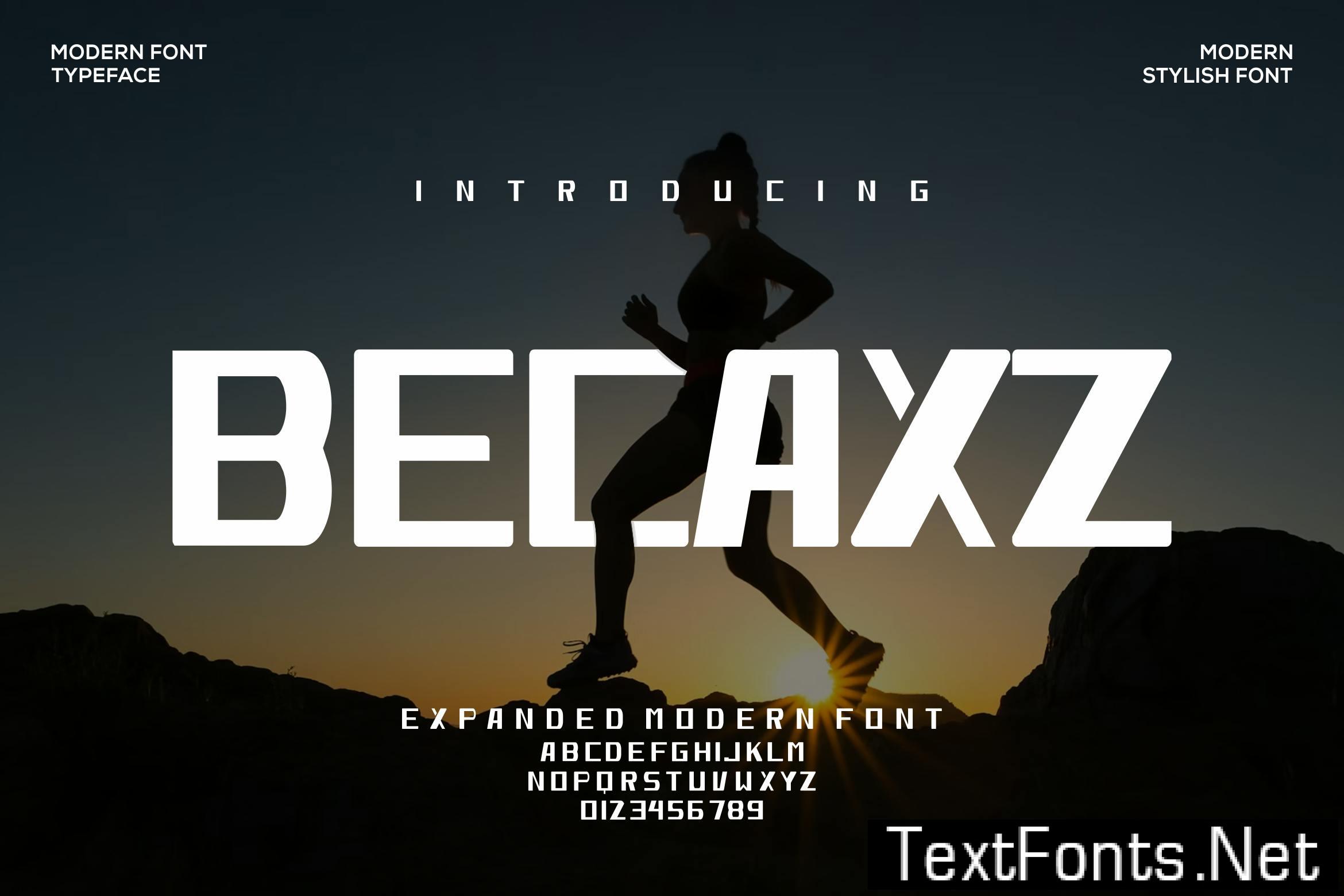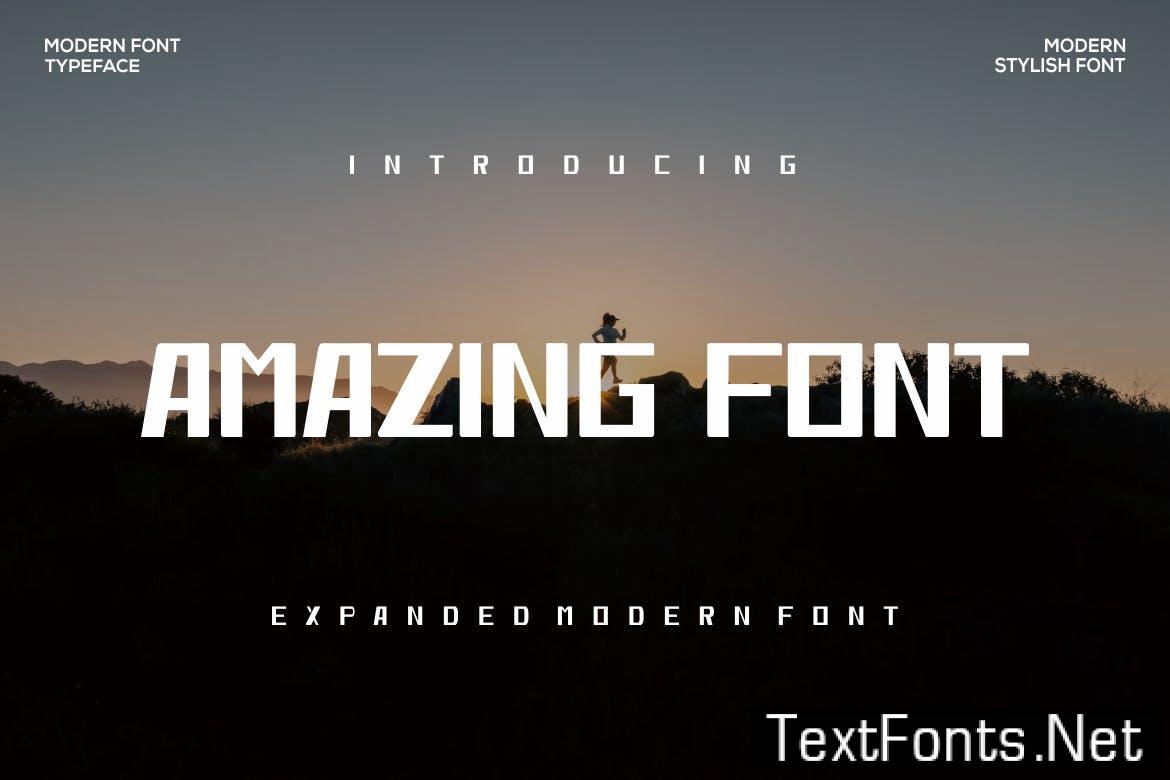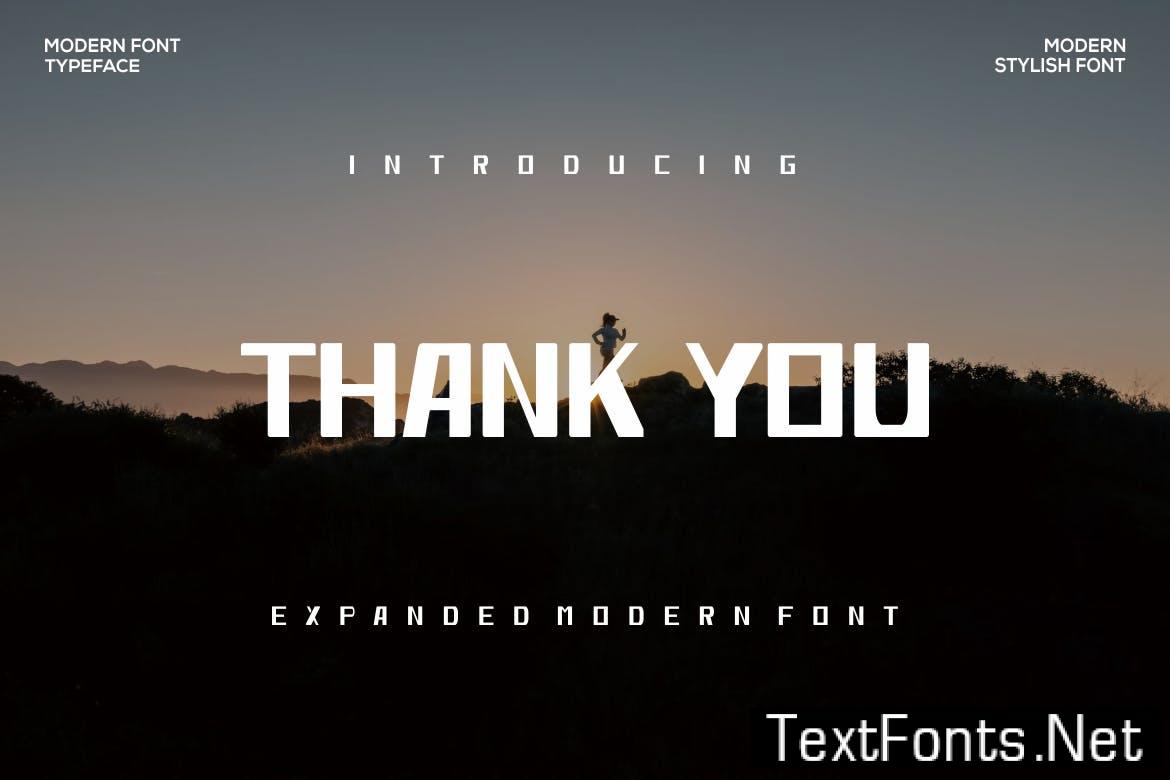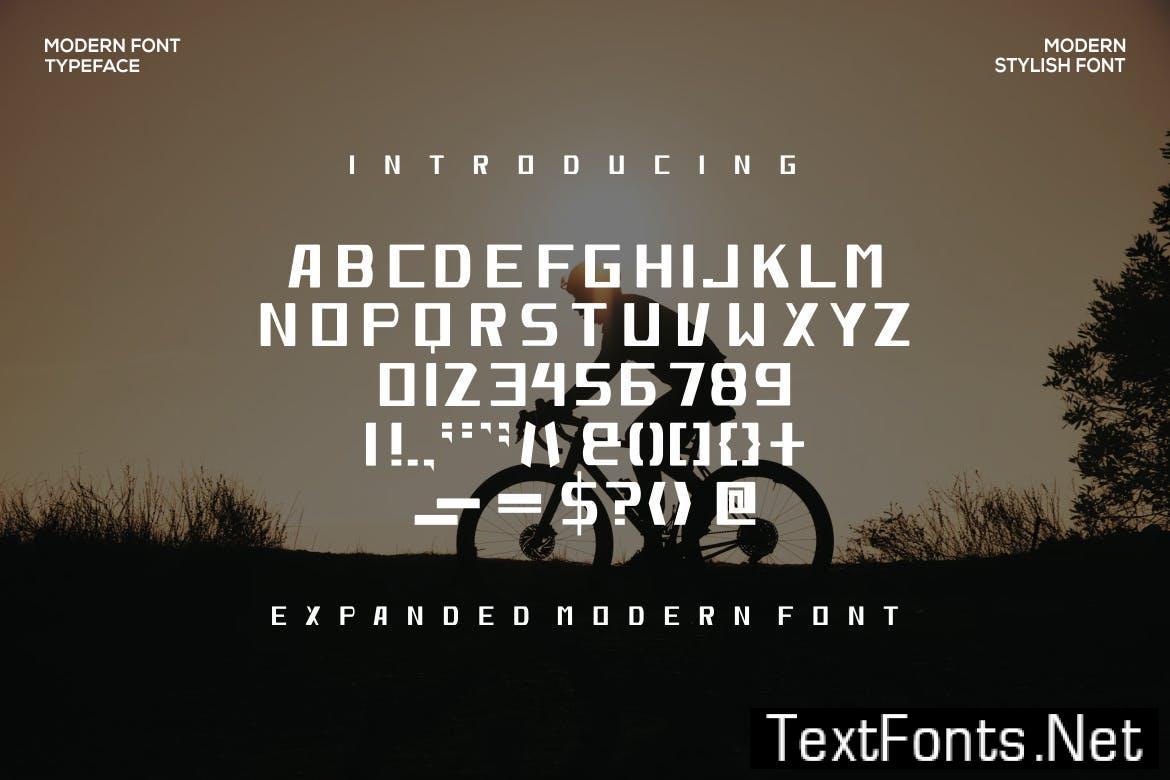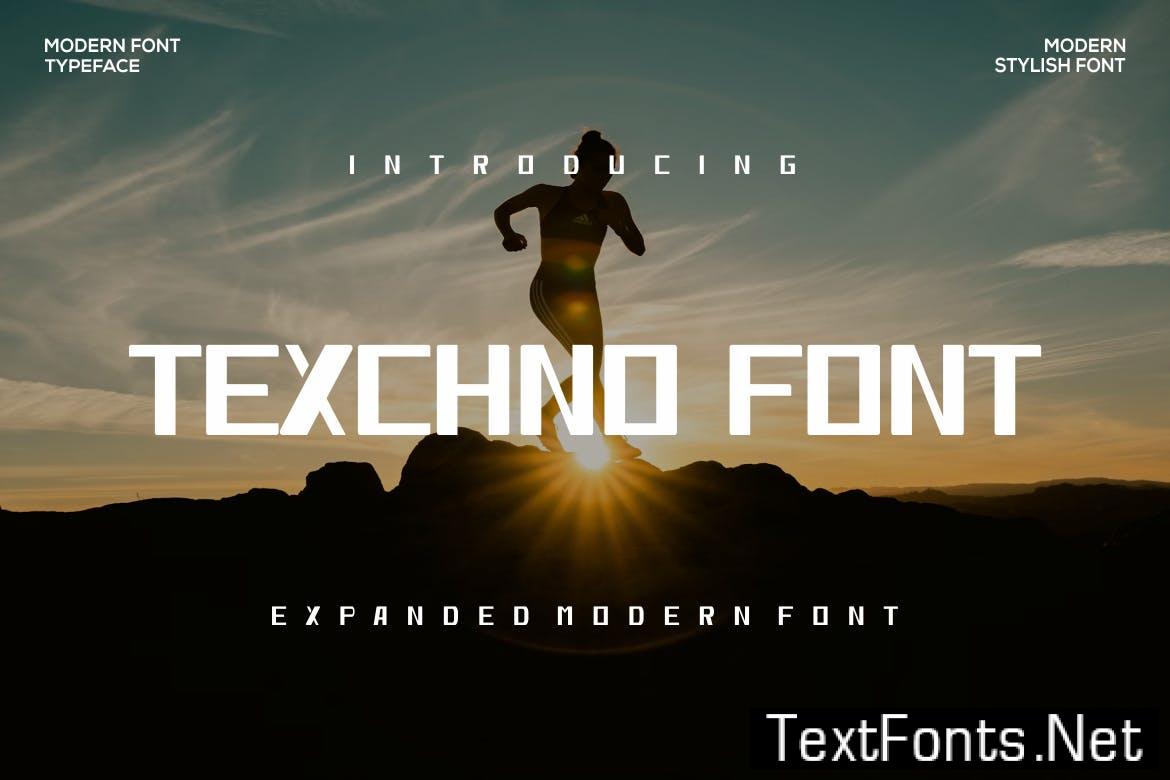
Introducing our new product **Becaxz Font** – Modern Font
**Becaxz Font** – Modern Font is a bold and authentic display font. The font is suitable for any branding project like logo, esport, and many more. outstanding in a wide range of contexts.